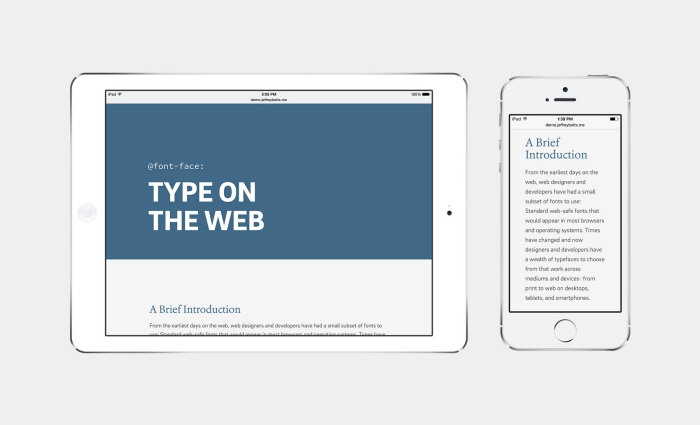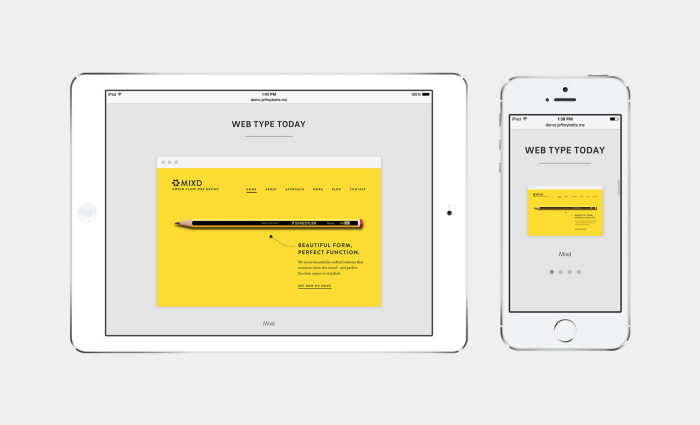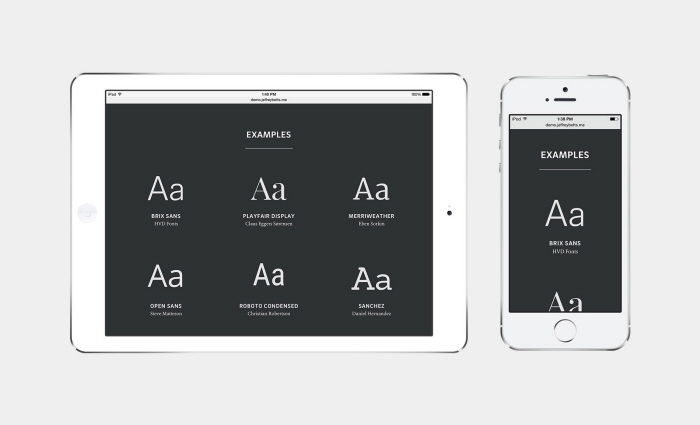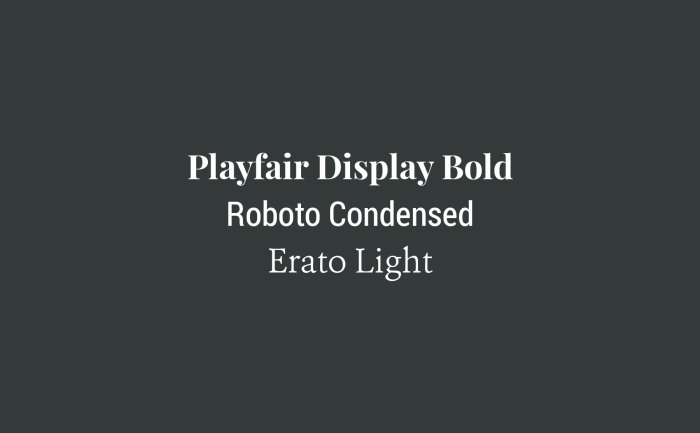
@font-face was built around a series of blocks and sections that work together to form a single cohesive layout across different devices. The design is informational and is focused on the typography. Each section is rendered with HTML5, CSS3, and web fonts. These blocks include text blocks, galleries, lists, slideshows, previews, and more.
All live type on @font-face is rendered with web fonts. The primary typeface used in @font-face is Brix Sans, a clean and readable sans-serif typeface- used in headings and body coy. Throughout @font-face, other fonts are used is well, including Source Code Pro, Erato, and Playfair Display.
@font-face is responsive and works across different platforms– from desktops, laptops, tablets, and mobile devices.